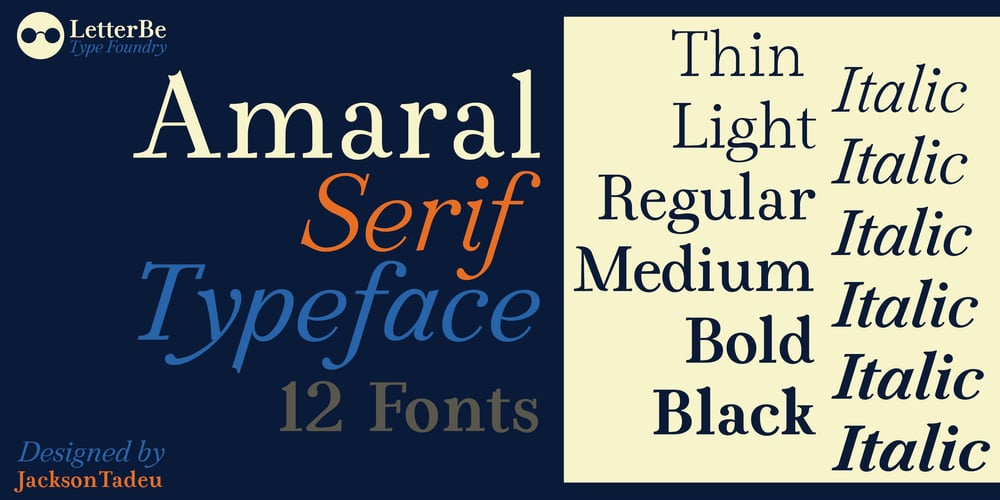
Amaral
Amaral font
Amaral Font Family was designed by Jackson Amaral and published by Oliveira 37. Amaral contains 12 styles and family package options. Amaral is a family of 12 fonts with a contemporary design style, based on different historical models. The calligraphic influences are subtle, best noticed in italics. The result is a set of fonts that look more “constructed” than “written”.Available in six weights of the Roman and Italic types, Amaral has a wide palette of glyphs. In addition to offering extensive support for Latin sets, among many OpenType resources, each font contains small caps and contextual ligatures, totaling more than 728 glyphs.Amaral is an option for editorial design projects and other related applications.